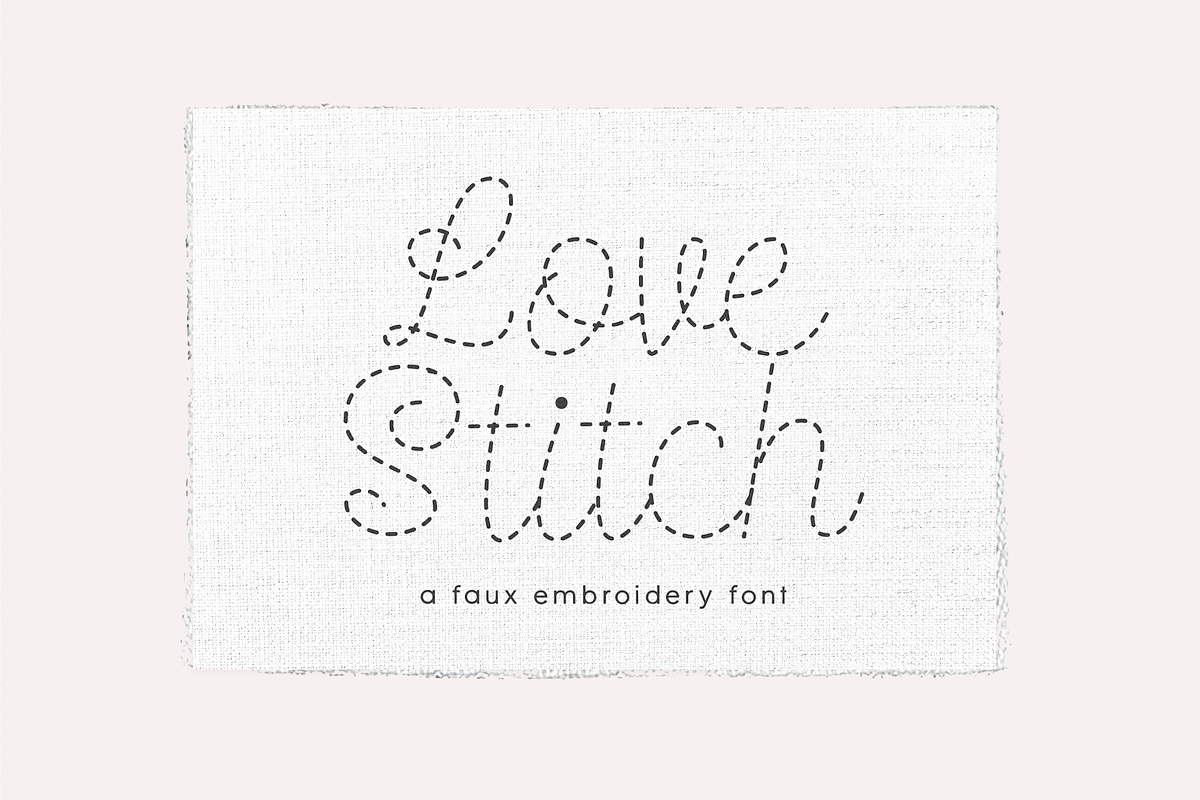
Love Stitch | Faux Embroidery Font Free Download
Love Stitch | Faux Embroidery Font Free Download is a charming and crafty display typeface designed to mimic the look of stitched embroidery. With textured details that resemble threadwork, this font is perfect for handmade branding, DIY projects, sewing-themed crafts, scrapbooking, Valentine’s cards, and cozy home décor designs.
The hand-sewn style of Love Stitch Free Download adds a warm, personal touch to both digital and printed projects. It’s ideal for use in logos, headlines, product packaging, and labels where you want to convey creativity, care, and charm.